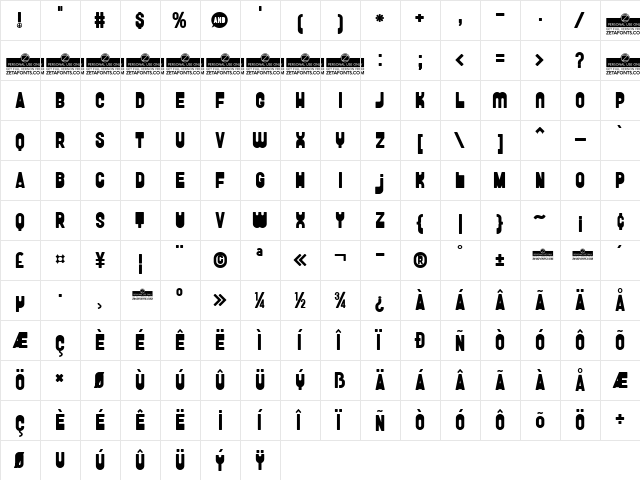
FunGhetto Regular
| Foundry | Studio Kmzero |
| Designer | Cosimo Lorenzo Pancini and Francesco Canovaro |
Design Context for FunGhetto Typeface
FunGhetto trades formality for fun, with bouncy, characterful letterforms that bring warmth and energy to any project.
Font Pairing: Pairs well with a rounded or humanist sans for body copy, maintaining the friendly tone without relying on FunGhetto to carry extended reading.
Pro Tip: Avoid using FunGhetto for long passages of text — it works best for headlines, labels, and short calls to action.